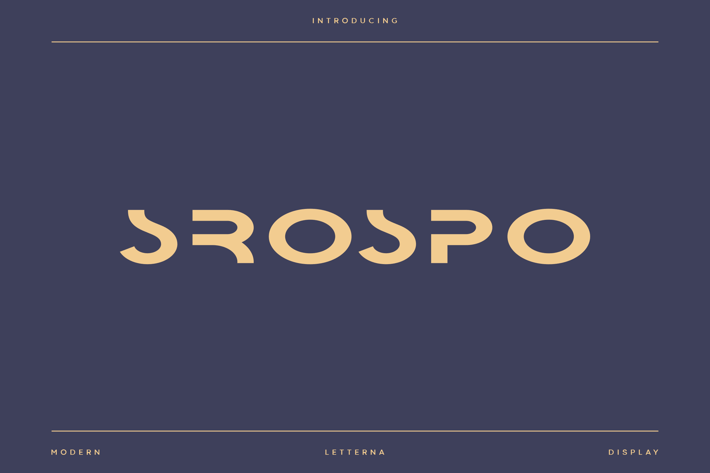
Srospo - Modern Futuristic Typeface
Letterna
Introducing our new product Srospo Modern Futuristic Typeface
This font has characteristics that reflect futuristic aesthetics and cyberpunk cultural elements, with an unfinished style that makes it look very sophisticated. Its design often combines elements of high technology, chaos, and urban characteristics. With this font you can get a different and stand out design experience, grab it for your work.